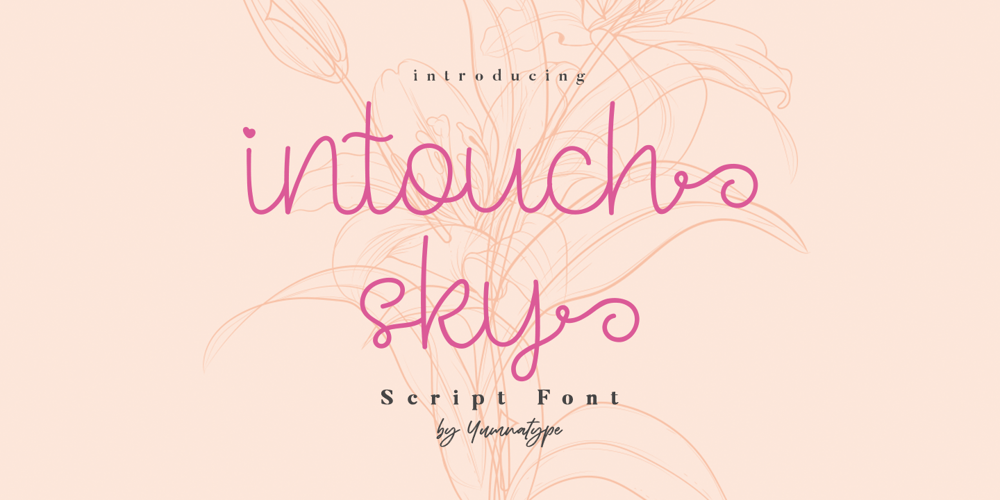
Intouch Sky
Intouch Sky Font Family was designed by Donis Miftahudin and published by Yumna Type. Intouch Sky contains 1 styles and family package options. Looking for a gorgeous font to captivate your audience, costumers, clients, or party guests?Intouch Sky-An Elegant Handwritten Font.This adorable, fun, and stylish font can be used for a host of different content needs and projects. Create gorgeous party invitations, printed quotes, standout packaging, or beautiful t-shirts! You can even use it to create amazing headings, logos, resumes, and social media graphics. Features: Beautiful Ligatures Alternates Swashes PUA Encoded Multilingual Support Numerals and Punctuation